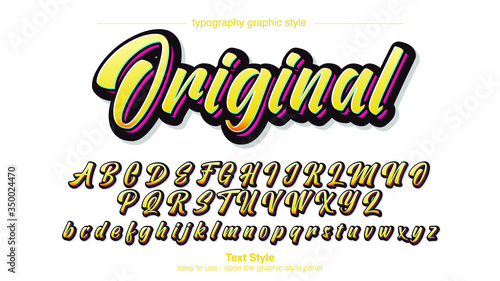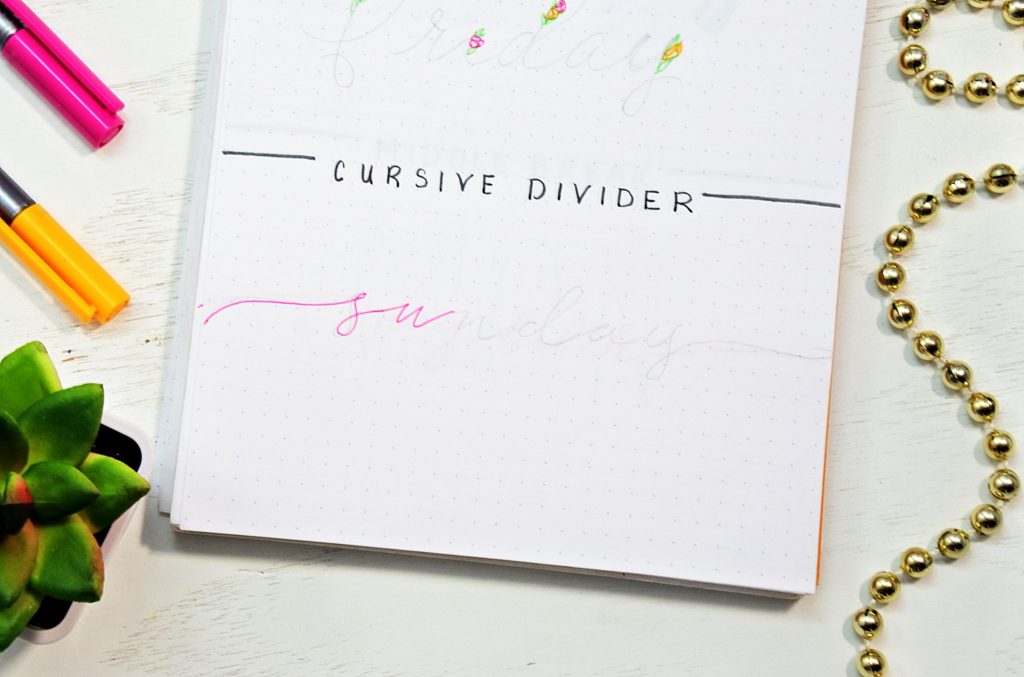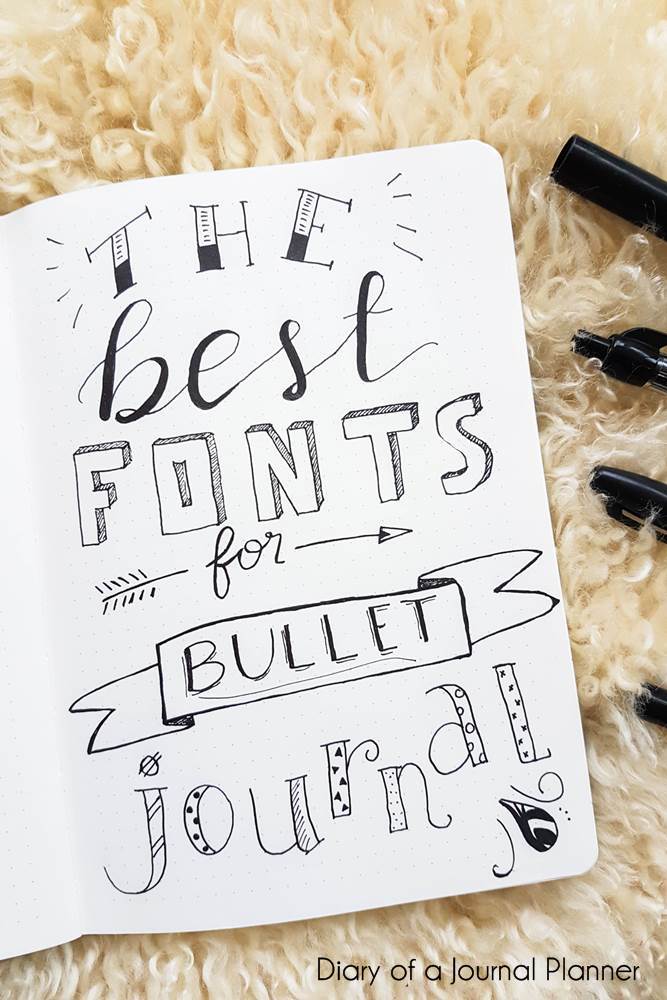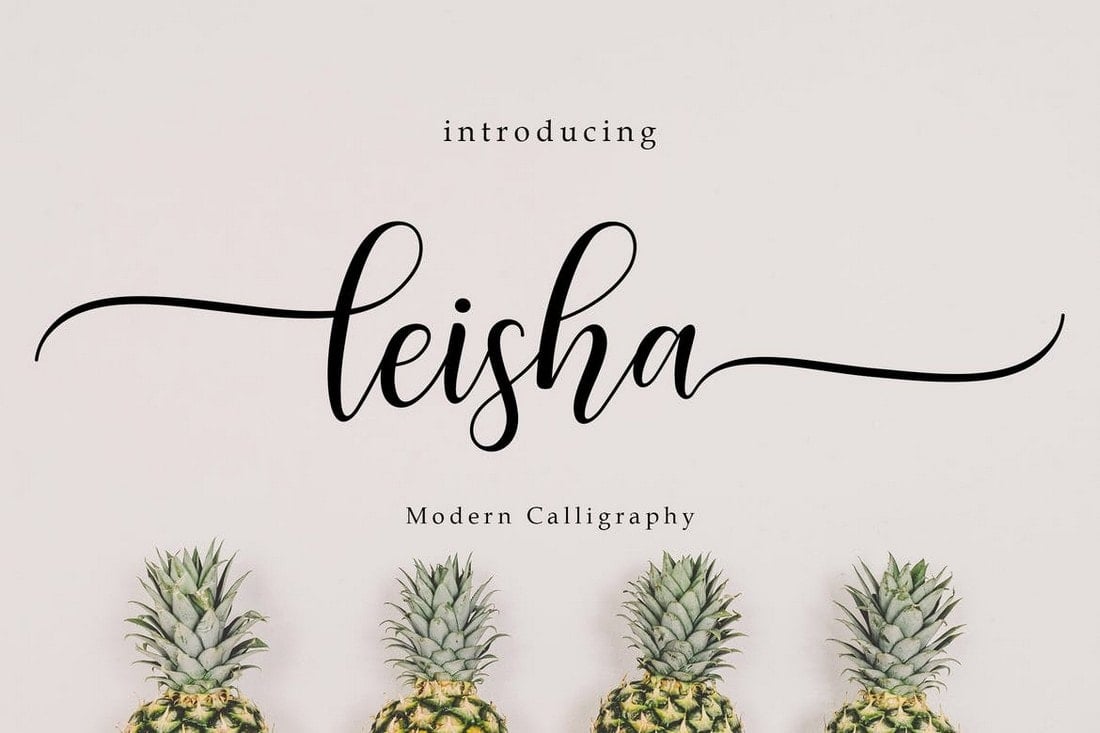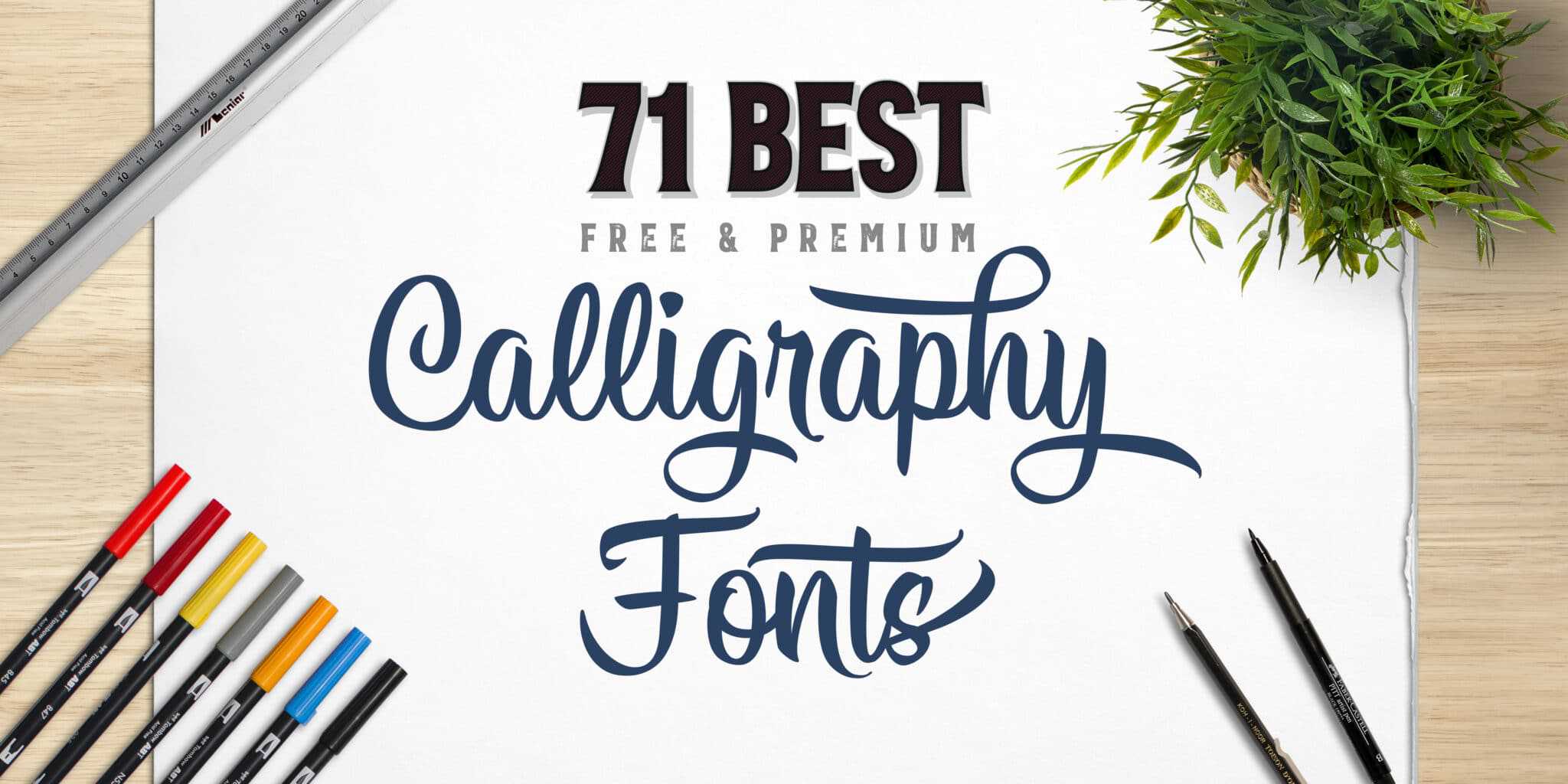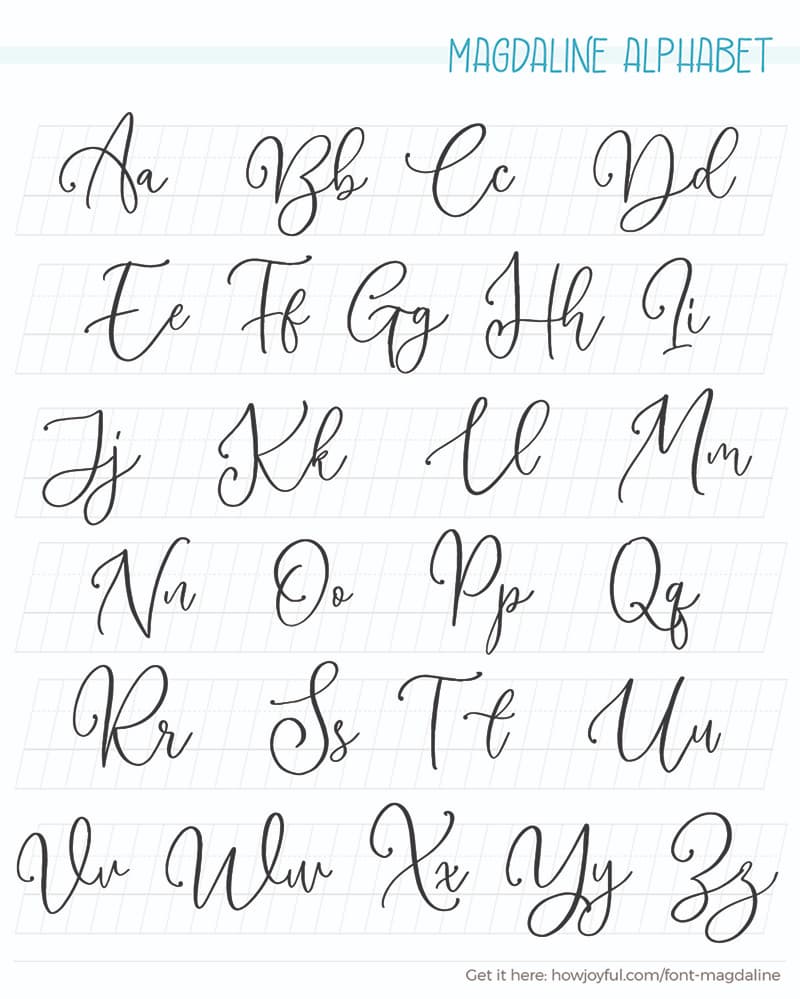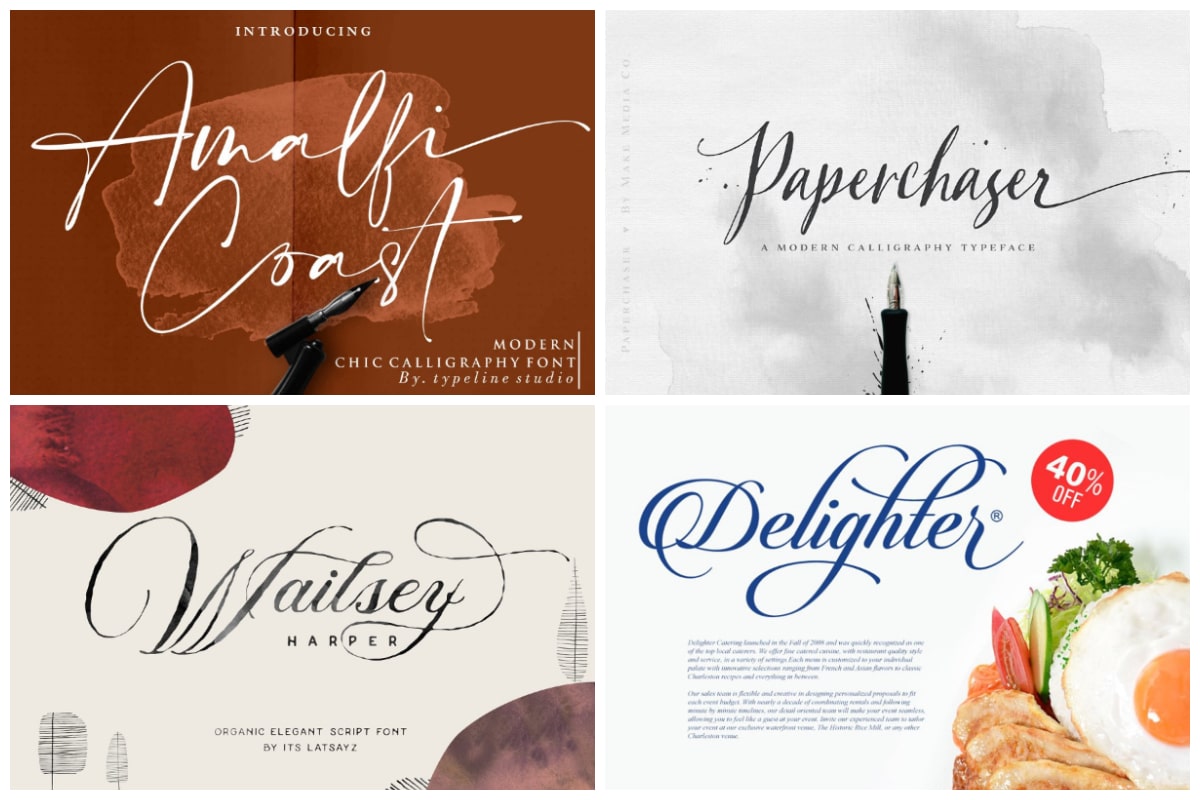
The writing is readable but is usually extravagant and embellished with flourishes.
Cursive easy calligraphy fonts. The height of calligraphy was reached in the middle age where monks developed the narrow writing style called gothic allowing more words to fit on a single line as paper was expensive at the time. Nov 16 2019 - Explore Briana Mirandas board Cursive Calligraphy on Pinterest. Looking for an alluring font for your wedding invitations.
Cursive also known as joint writing or running writing or handwriting is any style of penmanship in which the symbols of the language are written in a conjoined andor flowing manner generally for the purpose of making writing faster. Simple Handwritten Pointed Pen Calligraphy Cursive Font Calligraphy Alphabet Cute Calligraphy Le In 2020 Fonts Handwriting Alphabet Cursive Fonts Cursive Calligraphy. The main sub-styles are traditional calligraphy and modern.
With its elegant cursive details one cant help but appreciate them. Fire Ice Decorative Typewriter Stencil Army Retro Initials Grid Various. This can be a great font option for t-shirts greeting cards restaurant names billboards and other similar projects.
In the Arabic Latin and Cyrillic alphabets many or all letters in a word are connected sometimes making a word one single complex stroke. Bukhari Script font is free to use and its a bold monoline cursive font that you can use on any online or offline project. Calligraphy is an artistic writing style where the pressure is varied to create thick and thin lines all in a single stroke.